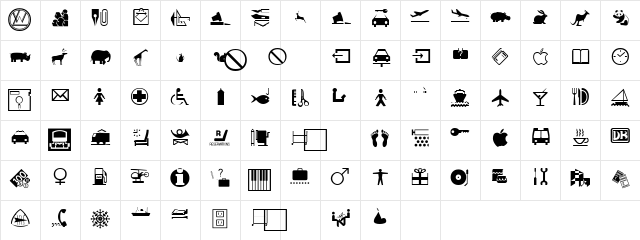
Inter Dingbats FC Normal
Design Context for Inter Dingbats FC Typeface
Inter Dingbats FC is a composed and adaptable typeface that performs quietly and consistently across a wide range of design contexts.